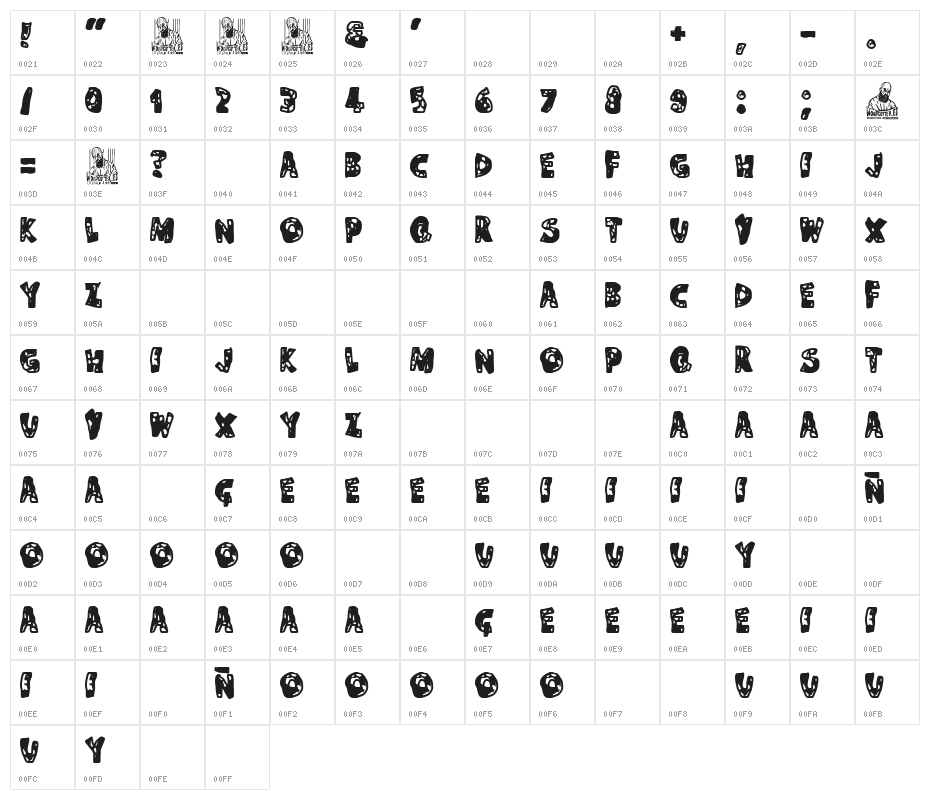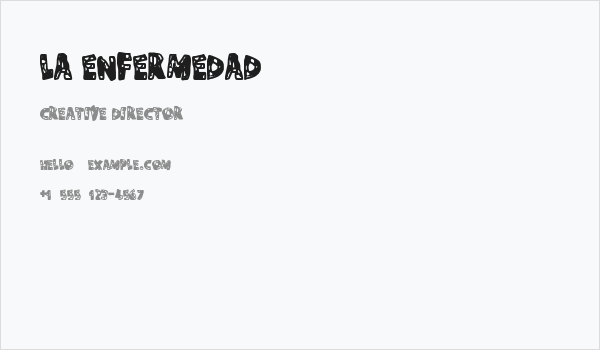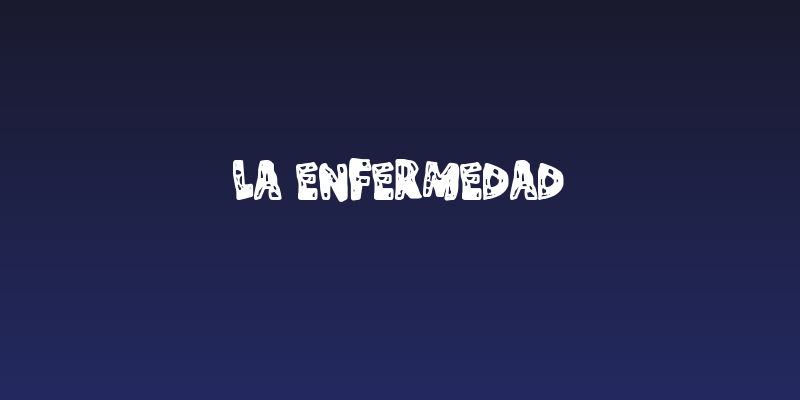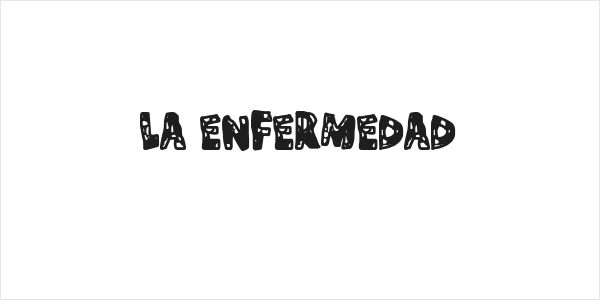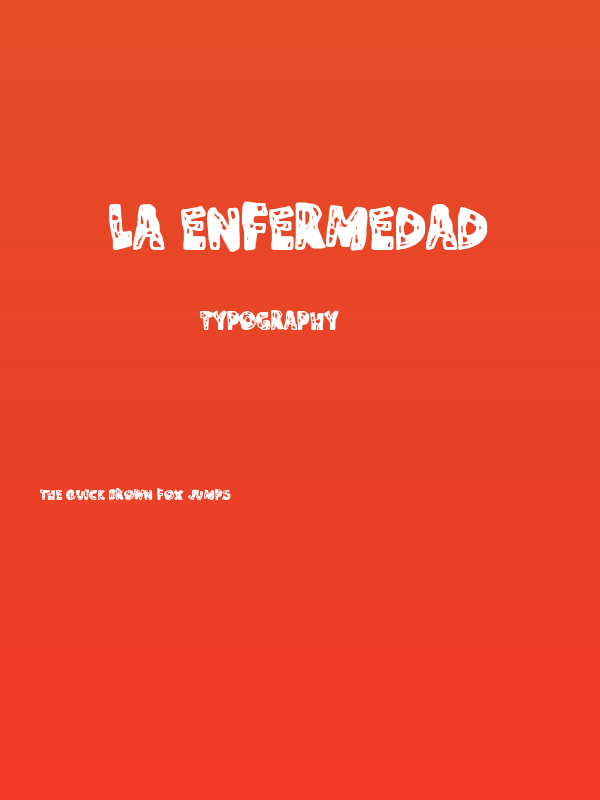
La Enfermedad Font
This font features a bold and playful design with a distressed, irregular appearance. The characters are heavily stylized, with uneven edges and a rough texture that gives them a unique, organic feel. The font has a strong visual impact, making it suitable for creative and unconventional projects. The uppercase and lowercase letters maintain a consistent style, while the numbers and special characters complement the overall aesthetic. The font's quirky and dynamic nature makes it ideal for attention-grabbing designs.
| Proposed Projects | Ideal for posters, album covers, Halloween-themed designs, and creative branding. |